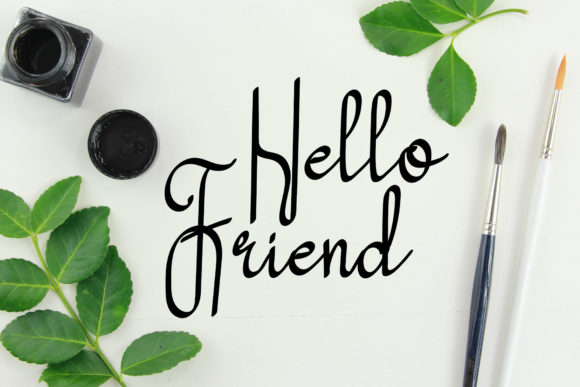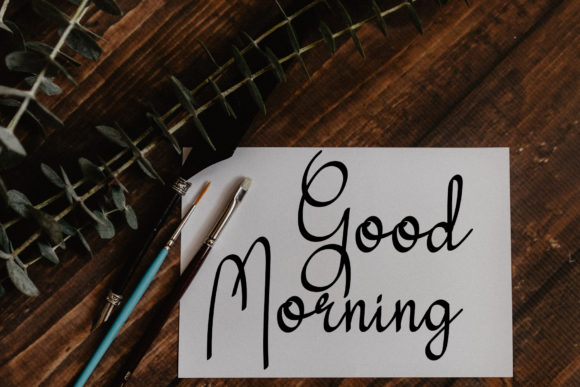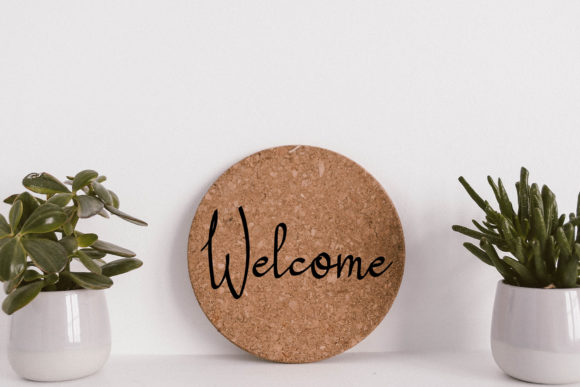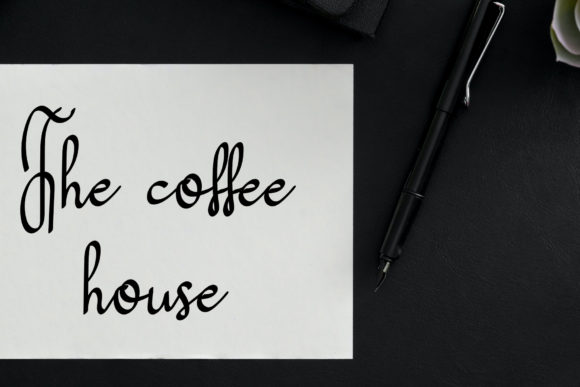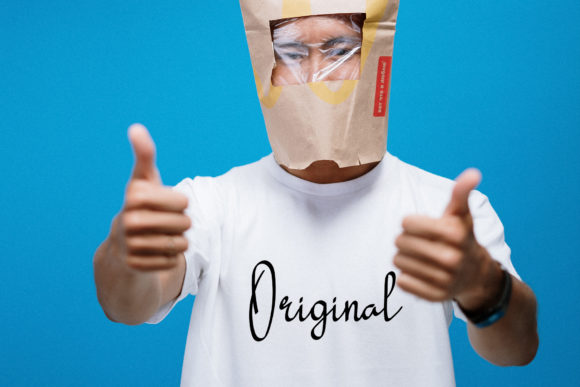
Introducing English Font: Elevate Your Designs with Timeless Elegance
Are you a designer or crafter looking for a font that exudes sophistication and refinement? Look no further than English Font, an elegant script font that brings a touch of classic calligraphy to your projects. Inspired by the timeless beauty of traditional calligraphy, English Font strikes the perfect balance between modernity and tradition, making it the ideal choice for those seeking a font that’s both contemporary and classic.
The Inspiration Behind English Font
English Font draws inspiration from the world of calligraphy, where the art of beautiful handwriting has been perfected over centuries. The font’s creator aimed to capture the essence of classic calligraphy, while infusing it with a modern twist that makes it suitable for a wide range of design applications. The result is a font that’s both nostalgic and fresh, with a unique character that sets it apart from more mundane fonts.
Key Features of English Font
So, what makes English Font so special? Here are just a few of its key features:
- Balanced and varied: English Font boasts a perfectly balanced stroke width, neither too thin nor too thick. This balance, combined with its varied letterforms, creates a sense of visual interest and harmony that’s hard to achieve with more uniform fonts.
- Contemporary atmosphere: While English Font is undoubtedly rooted in tradition, it also has a distinctly modern feel. Its clean lines, subtle curves, and elegant connections make it an excellent choice for designers looking to create contemporary designs with a touch of sophistication.
- Impeccable form: English Font is a masterclass in typographic excellence. Each letterform has been carefully crafted to ensure that it’s not only aesthetically pleasing but also highly legible, making it perfect for use in a wide range of design projects, from logos and branding to invitations and packaging.
Use Cases for English Font
English Font is an incredibly versatile font that can be used in a wide range of design applications, including:
- Logos and branding: Create a lasting impression with a custom logo that showcases your brand’s personality and style.
- Invitations and events: Add a touch of elegance to your wedding invitations, event flyers, or party announcements.
- Packaging and product design: Elevate your product packaging with a font that’s both sophisticated and eye-catching.
- Stationery and paper goods: Create beautiful stationery, greeting cards, or journals that showcase your attention to detail and commitment to quality.
Why Choose English Font?
With so many fonts to choose from, why should you opt for English Font? Here are just a few compelling reasons:
- Unique character: English Font has a distinct personality that sets it apart from more generic fonts.
- High legibility: English Font is designed to be easy to read, making it perfect for use in body text or captions.
- Flexibility: English Font can be used in a wide range of design applications, from digital projects to print materials.
English Font is an exceptional script font that offers a perfect blend of classic elegance and modern sophistication. Its unique character, impeccable form, and versatility make it an excellent choice for designers and crafters looking to elevate their designs. Whether you’re creating a logo, invitation, or packaging, English Font is sure to make a lasting impression. So why wait? Download English Font today and experience the beauty of timeless calligraphy in your designs.